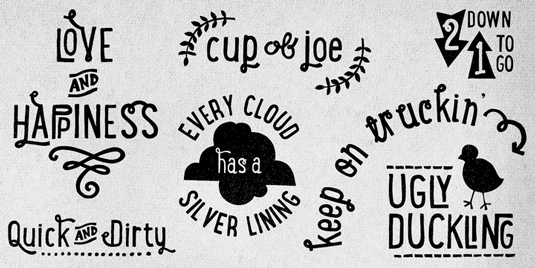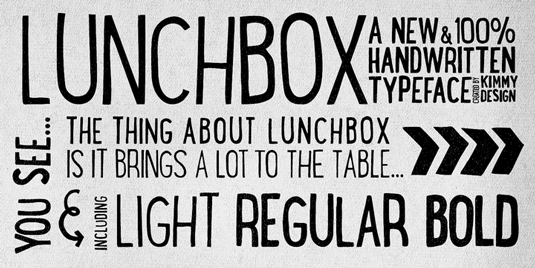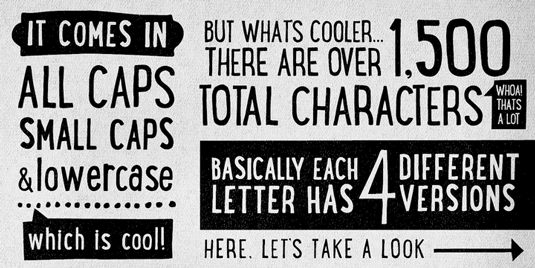
Font of the day: Lunchbox
Every day we showcase the best fonts on the web. Today it's Lunchbox by Kimmy Kirkwood.
Lunchbox by Kimmy Kirkwood
Give your designs a unique and personalised look with this hand-drawn typeface Lunchbox, by type designer Kimmy Kirkwood. Using Lunchbox's OpenType features gives access to over 1,500 different characters.